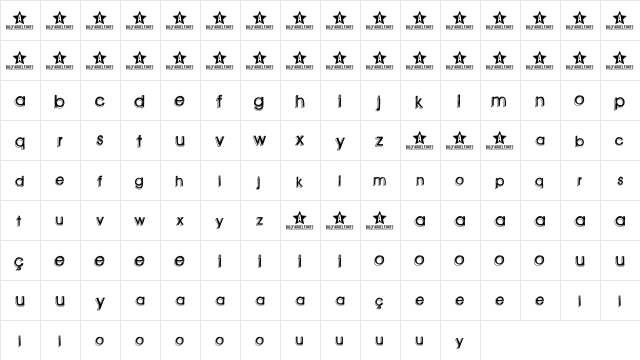
green piloww Regular Font Preview
green piloww Regular
Design Context for green piloww Typeface
green piloww is a composed and adaptable typeface that performs quietly and consistently across a wide range of design contexts.